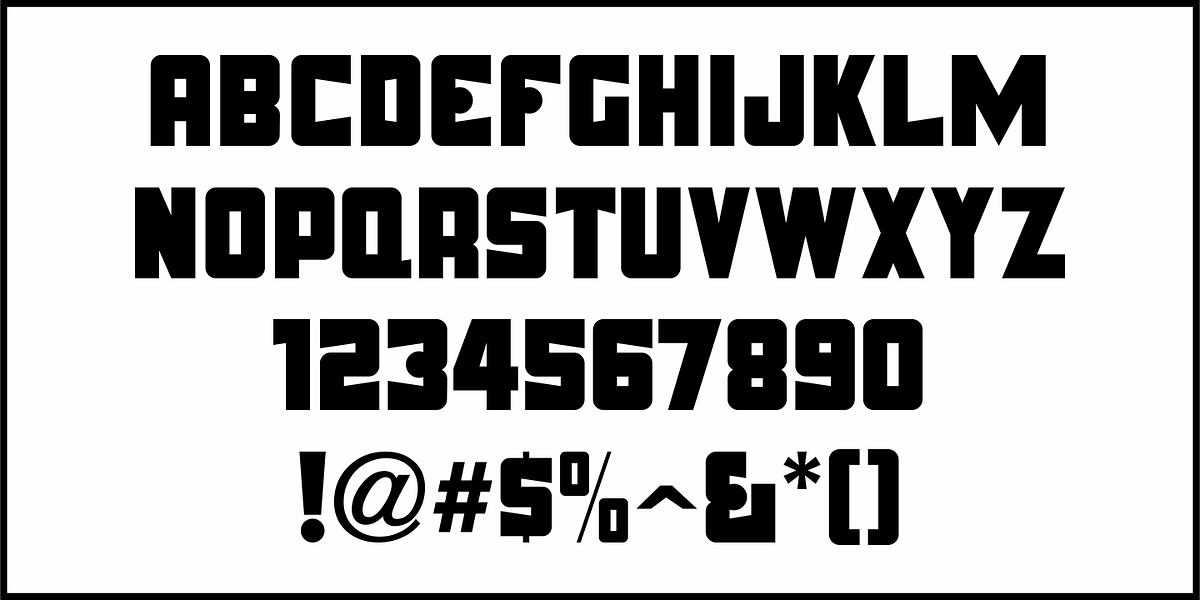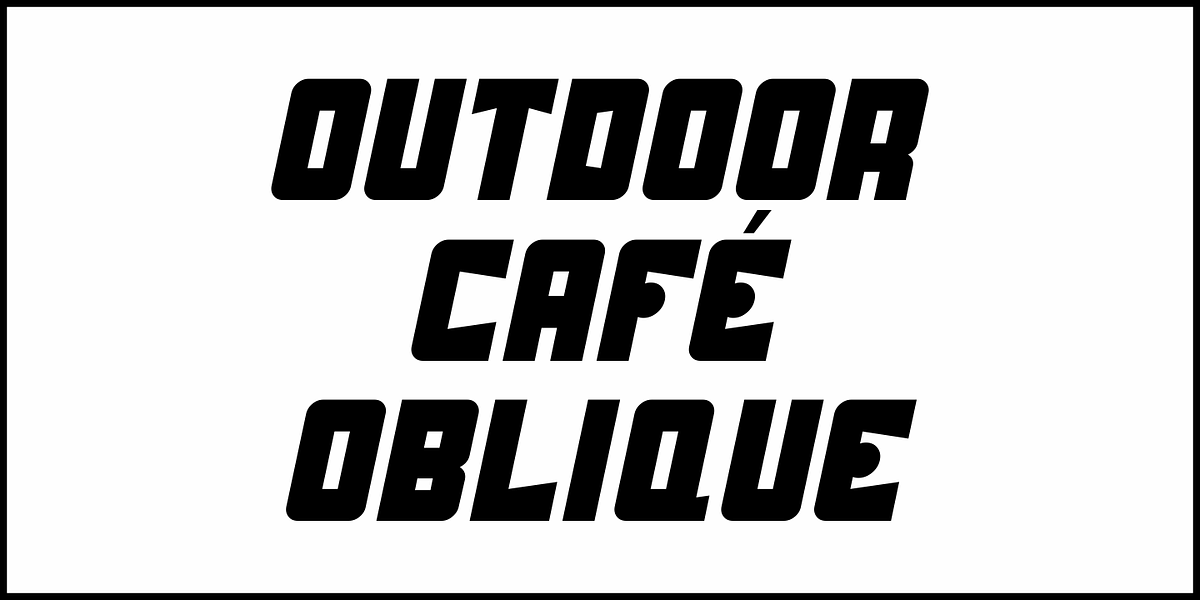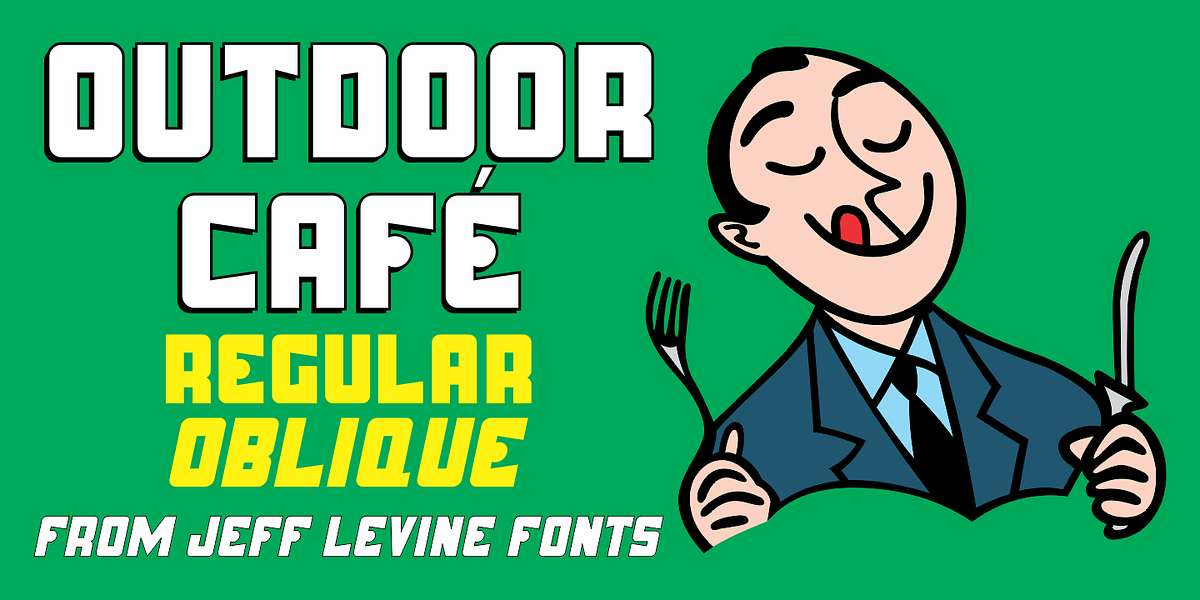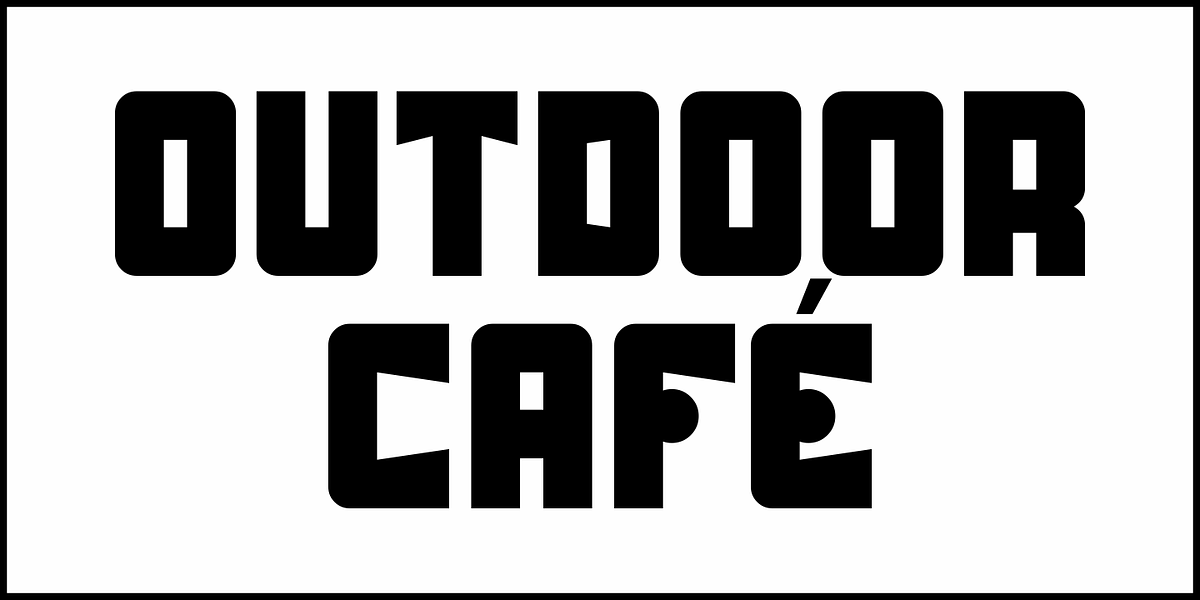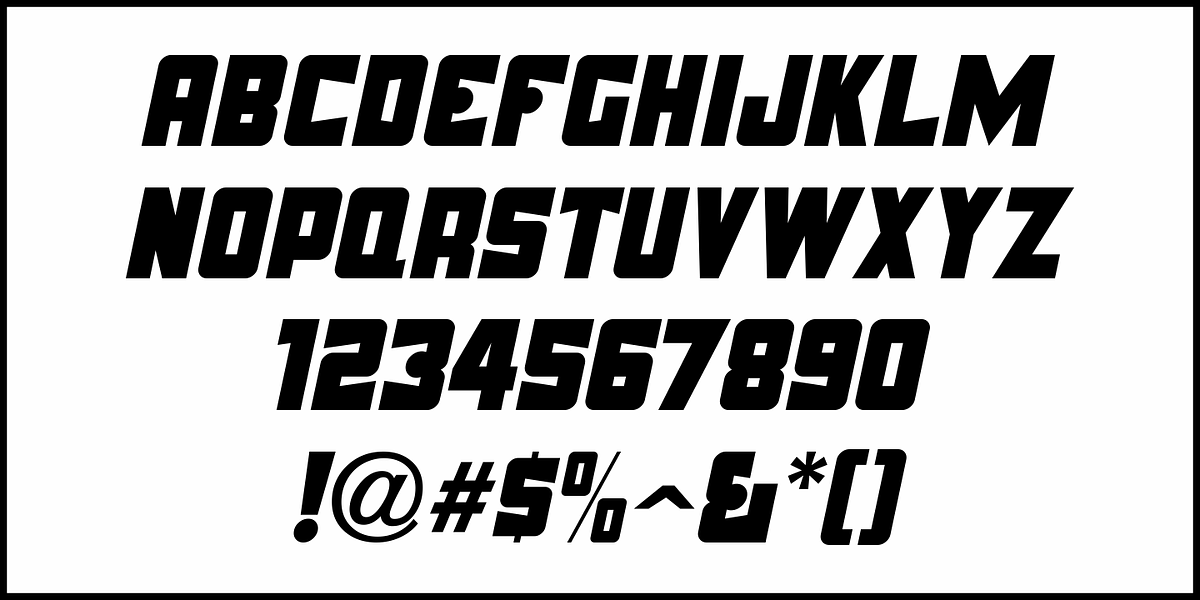
Outdoor Cafe JNL
The movie poster for the 1937 film “Cafe Metropole” served as the basis for Outdoor Cafe JNL, which is available in both regular and oblique versions.
The extrabold, stylized letter forms with their rounded corners typifies the wide variety of typographic styles the Art Deco period offered.